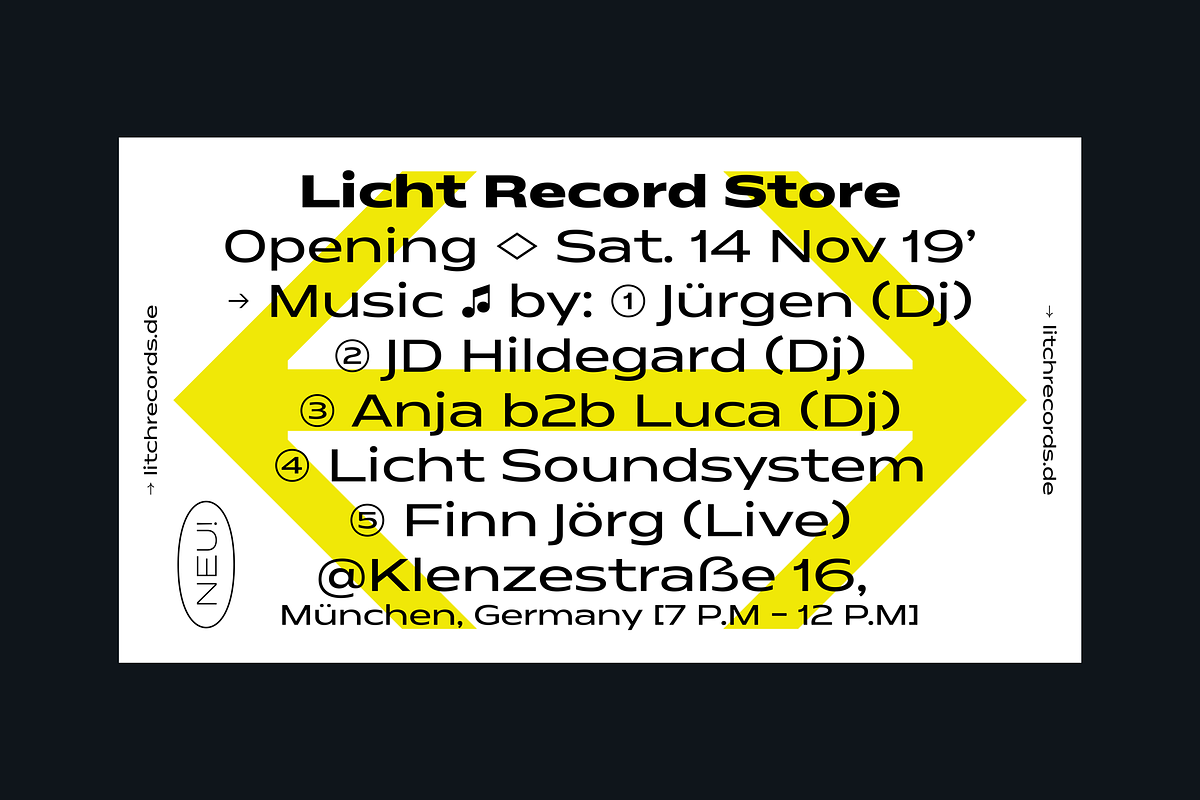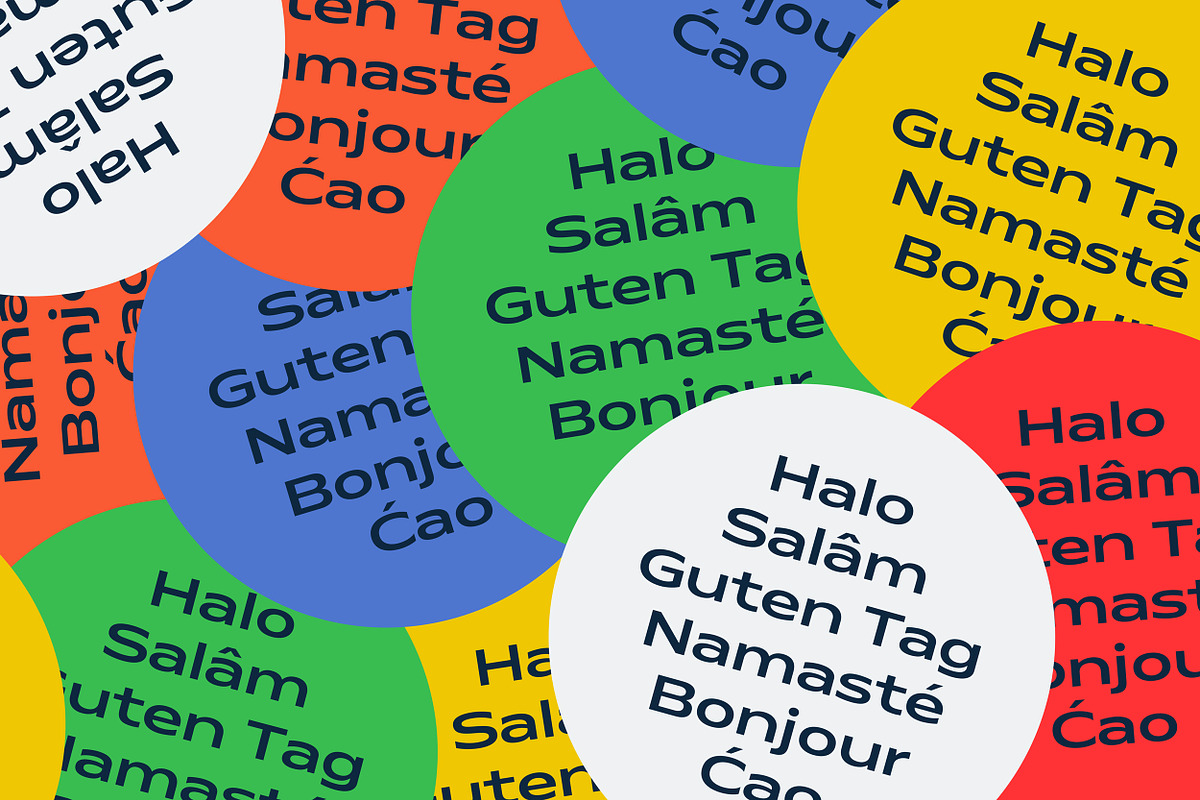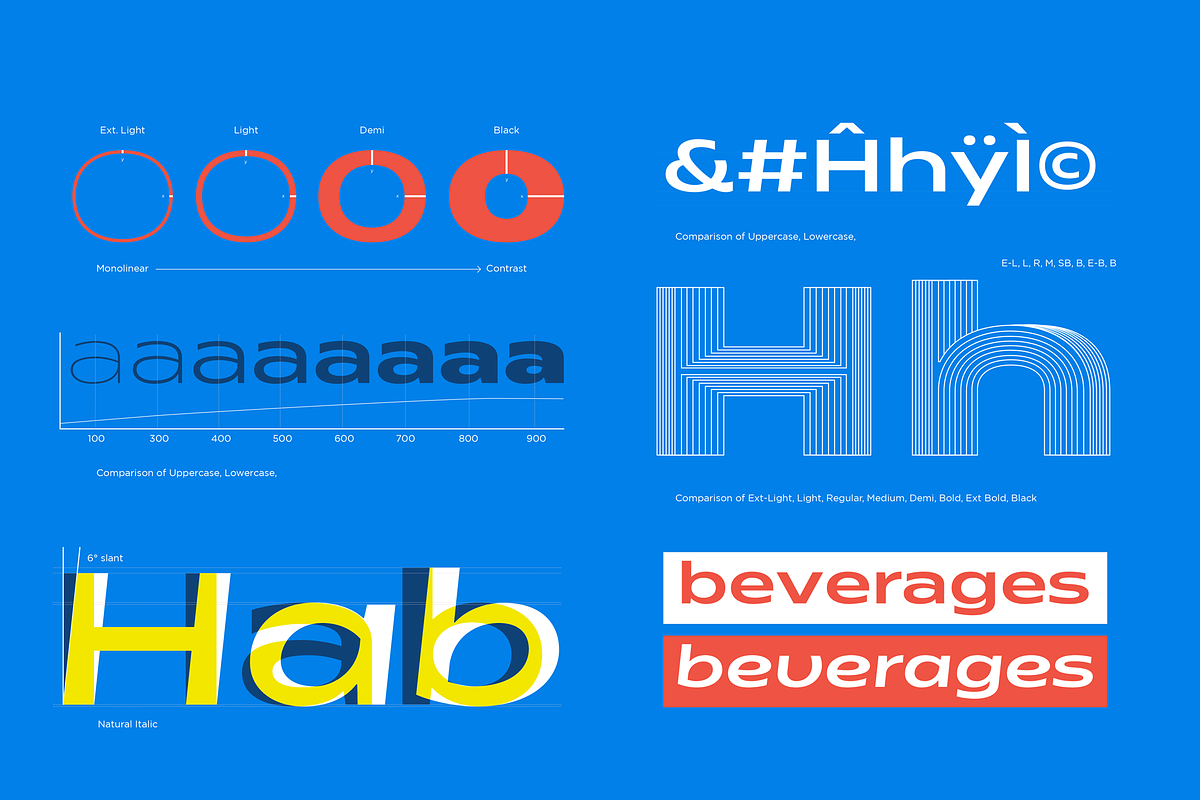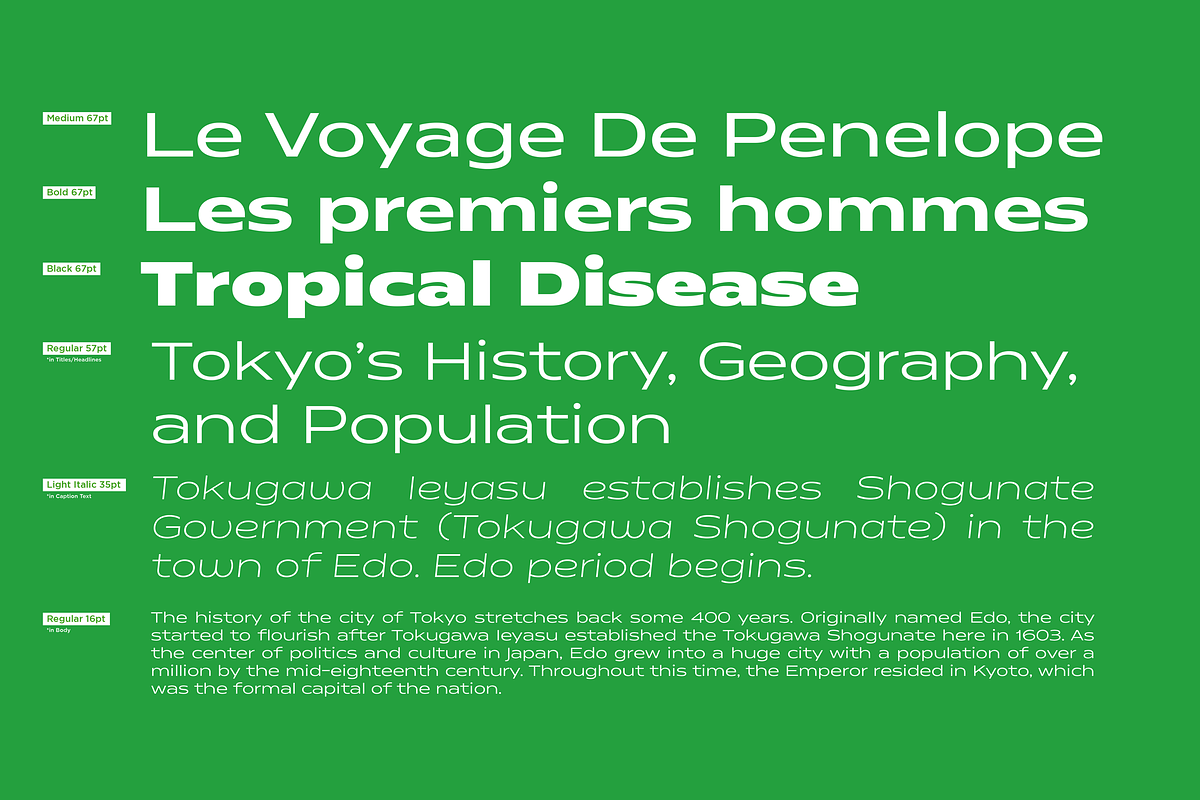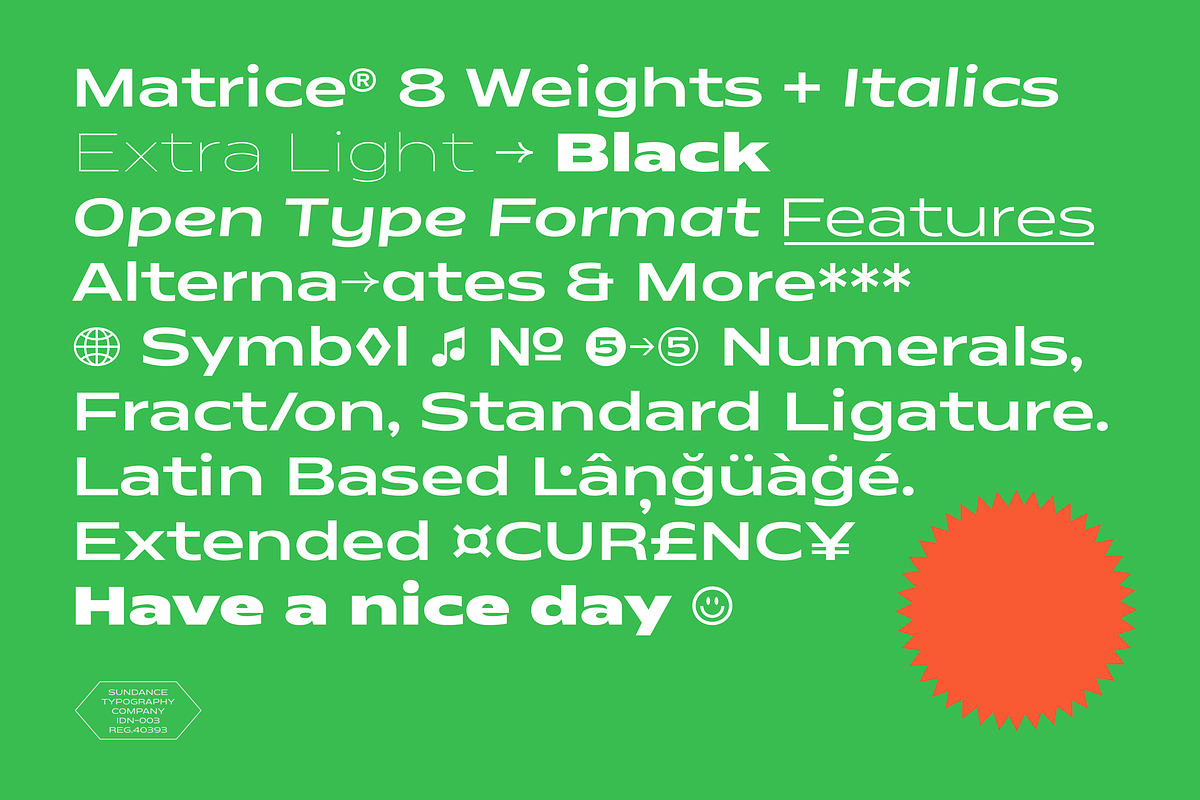
Matrice - Font Family
Matrice is a sans serif (Semi Extended) display font family in 8 weights plus matching natural italics. support 75+ Languanges (Latin Based) influenced by the grotesk typefaces developed in the early 20th century, perfect for branding (Identity), logotype, headline text, and caption.
Matrice Semi Bold Italic
Matrice Extra Bold Italic
All the designs contained in the poster using Matrice Family
Matrice - Font Family by Sundance Tipografia fits naturally into Branding, posters, packaging, typography.